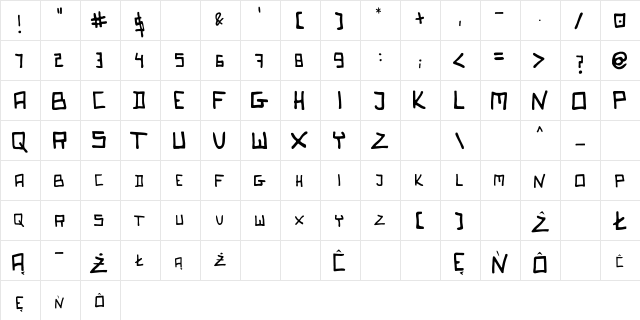
Mikolajf Regular
Design Context for Mikolajf Typeface
Mikolajf is a composed and adaptable typeface that performs quietly and consistently across a wide range of design contexts.